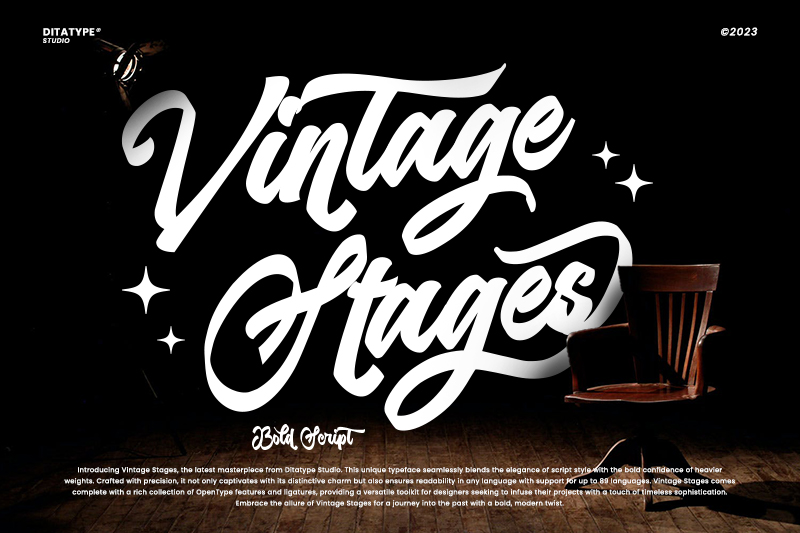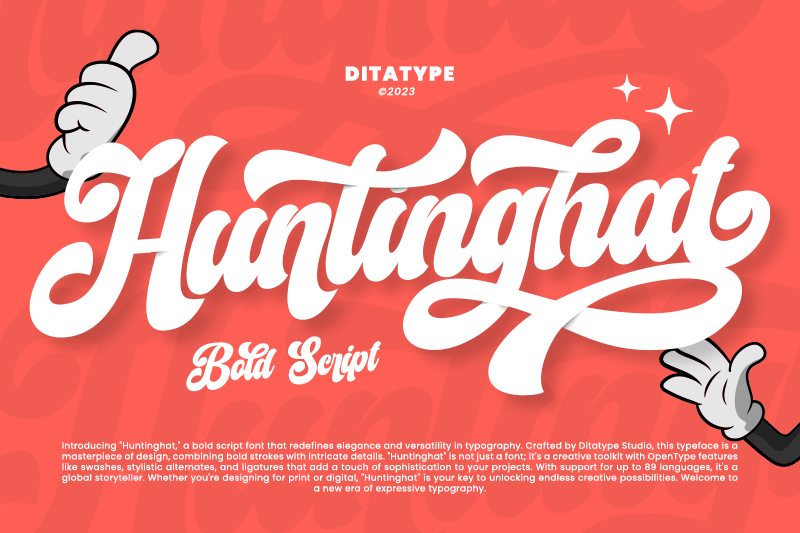
In the increasingly competitive design world, the proper font selection is one of the most crucial aspects in building a strong brand visual identity. Choosing the best bold script font is also one of the ways many designers choose to make a design that is elegant, creative, and personal at the same time.
Many logos, brands, product packages, posters, social media, and merchandise use the best bold script font as their choice, as it creates a standout look that strengthens the brand character. Additionally, this font type has an incredible flexibility that is ideal for various design styles, whether vintage and premium or modern and casual.
If you are looking for your best bold script font to design your projects, you are in the right place. You can find various font recommendations below and choose one that strengthens your brand visual identity. Let’s check them out!
Vintage Stages is the first one in this best bold script font recommendation. Combining a classic calligraphy charm with modern touches here and there, Vintage Stages appears elegant and strongly characterful at the same time. Balanced thicknesses, consistent letter flows, and smooth contrast in this font make the overall design look harmoniously sophisticated. Complete with ligatures and stylistic sets, it is a perfect font for vintage logos, barbershop branding, retro apparel, and professional promotions.
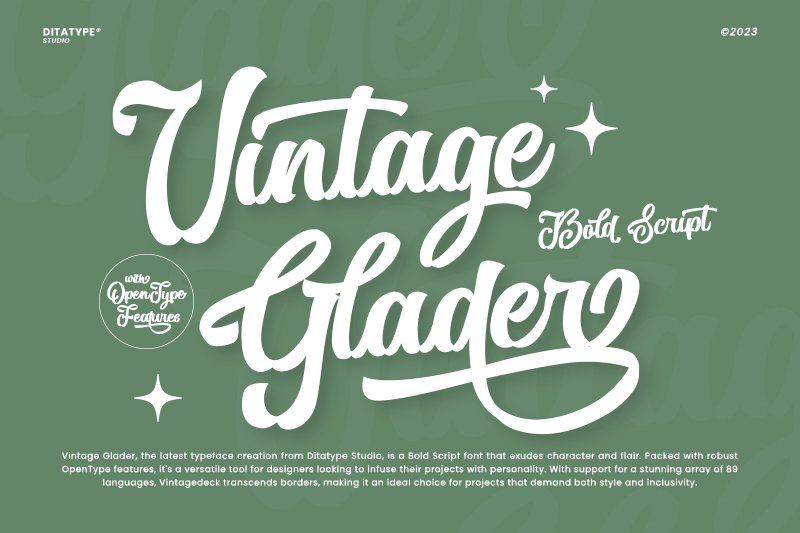
Presenting the combination of a classic gracefulness and strong visual character, Vintage Glader is designed with a bold letter structure, balanced proportion, and harmonious script style. Vintage Glader has a dynamic letterstroke combination, creating a more expressive and appealing appearance. Furthermore, this font also presents an elegant and artistic vibe through its distinctive decorative details, making it ideal for logos, invitations, premium branding, apparel, and classic packaging.
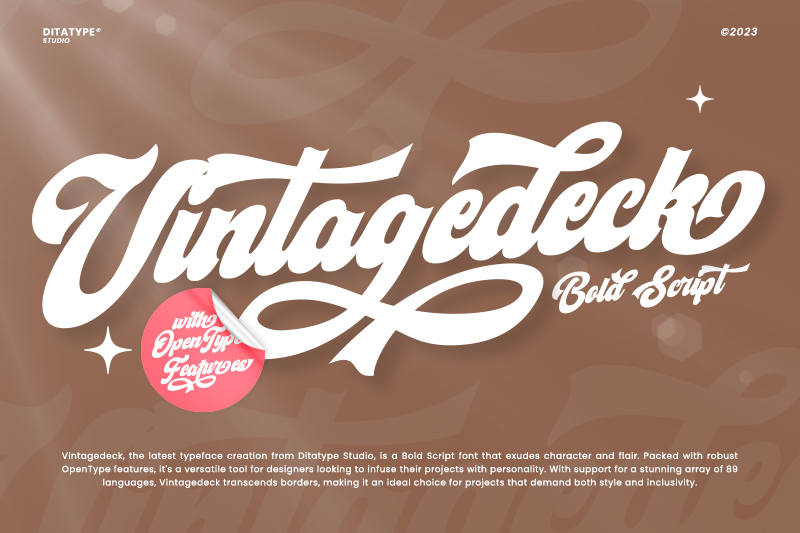
Vintagedeck has a visual that combines an elegant vintage nuance with appealing modern touches. As one of the best bold script fonts, Vintagedeck presents a soft and expressive script style, with rounded, proportionally balanced letterforms. The details of the flowing strokes resemble authentic handwriting, creating a warm and recognizable impression for creative designs, including logos, branding, posters, and signage.
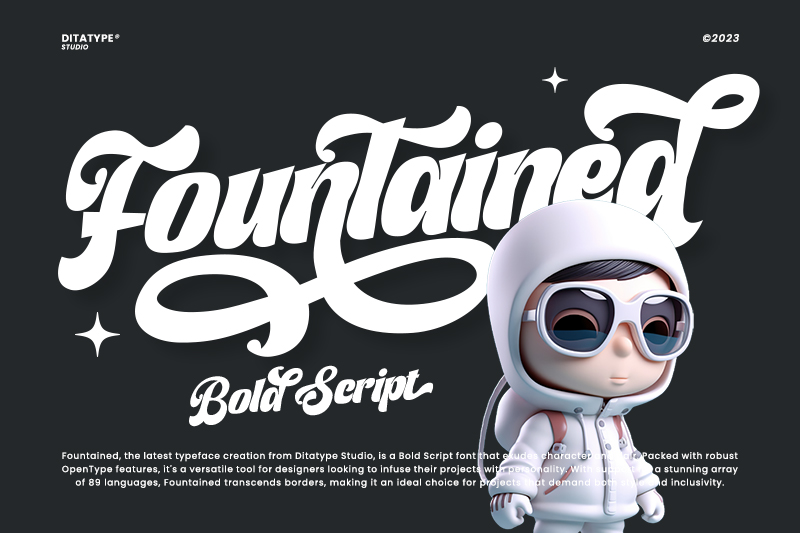
Fountained offers a more modern script font style compared to general vintage font styles. The bold letterforms with dynamic and decorative swashes create an elegant, striking, and appealing impression. The letter details are designed to be balanced through flowing connections, smooth terminals, and neat proportions, resulting in a professional and classy appearance. This font is very suitable for logos, branding, packaging, apparel, posters, and various creative projects that require a strong visual identity.
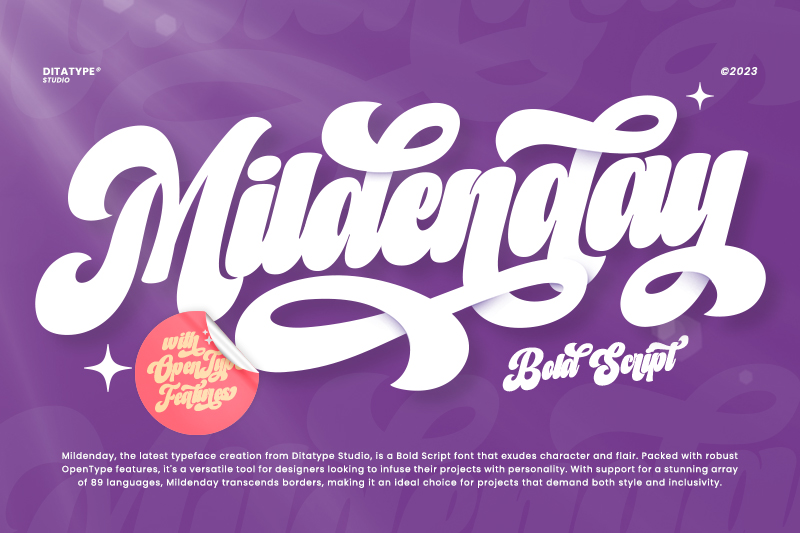
The next best bold script font recommendation is Mildenday. It is an appealing script font that combines a sense of bravery and elegance in a perfect harmony. The letterform is bold with soft curves and decorative swings ending, creating a dynamic and characterful visual flow. The low-contrast letterforms, smooth transitions, and balanced proportions create a professional look, making this font ideal for branding, logos, packaging, and posters.
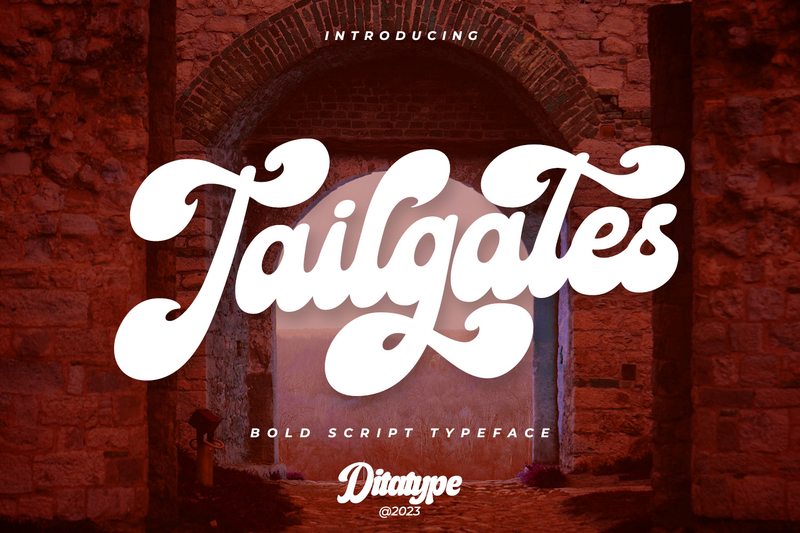
With a more striking appearance, Tailgates is a bold script font designed to evoke an elegant, friendly impression full of visual character. With rounded letter edges and consistent proportion, this font has a harmonious and appealing visual ideal for a wide range of design needs. High contrast and curved swashes of this font add a dynamic sense, while its decorative touches strengthen the visual identity. Complete with ligatures, stylistic sets, and swashes, Tailgates works perfectly for branding, logos, promotion, and striking headlines.
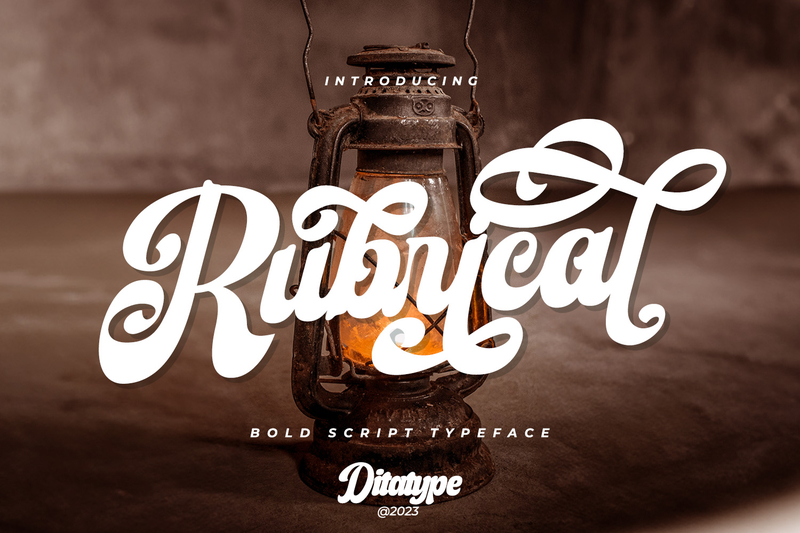
“Elegant” and “full of character” are two words to represent Rubrical, one of the best bold script font styles in the market. Rubrical conveys a personal and confident impression through its form. The decorative variations in this font create a warm and professional appearance with interconnected letterforms, combined with elegant curves. This font is also equipped with ligatures, stylistic sets, and swashes to produce expressive typography for logos, luxury branding, invitations, and product packaging.
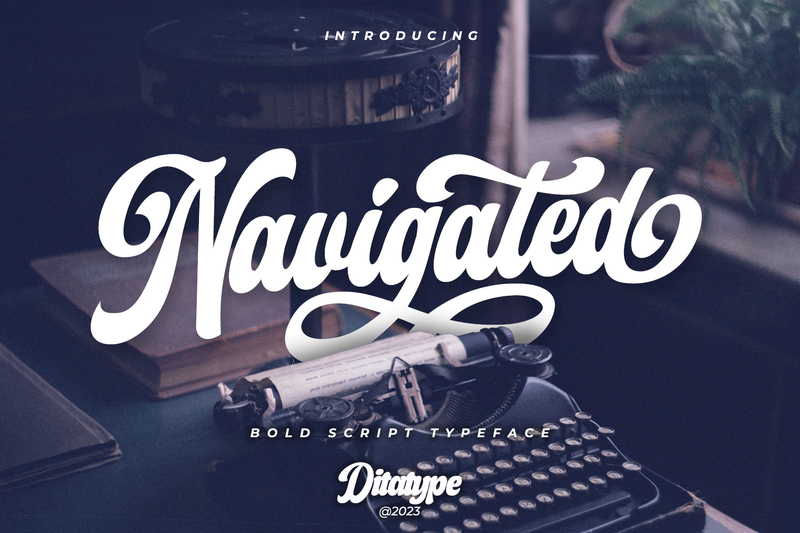
Navigated is a stunning script font that is elegant and dynamic that combines striking characters with harmonious visual balance. This font offers a consistent proportion with low contrast that results in a stable and modern appearance. The curved details on the letter edge provide a visual charm that is both lively and captivating. With a strong, classy character, Navigated works perfectly for logo designs, branding, product packaging, promotion media, and other creative projects.